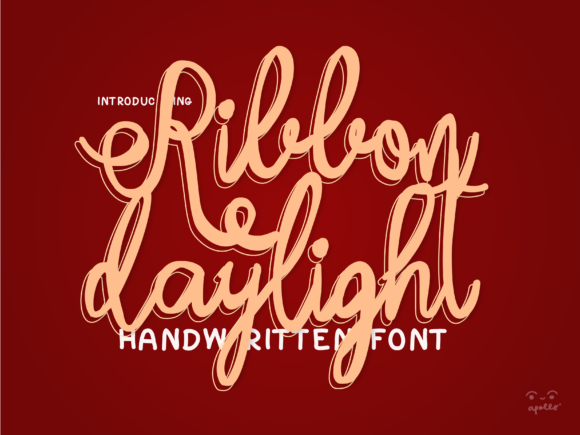
Ribbon Daylight Script: A Font with Flow and Grace
There's a particular kind of warmth that only a handwritten element can bring to a design. It's the subtle imperfection, the human touch, that transforms a standard layout into something personal and inviting. This is the core of Ribbon Daylight Script. It’s not just another script font; it’s a carefully crafted typeface where each character is adorned with delicate ribbon-like strokes and playful swirls. The result is a premium font that feels both elegant and effortlessly modern.
The Anatomy of a Charming Typeface
What makes Ribbon Daylight Script stand out in a crowded field of script fonts? Its personality is in the details. The strokes have a confident, flowing rhythm, mimicking the way a skilled calligrapher's pen might glide across paper. The defining feature, as the name suggests, is the ribbon effect—a subtle, dimensional quality where strokes appear to twist and loop over themselves, adding depth and visual interest without becoming overwhelming. This isn't a stiff, formal calligraphy; it's a handwritten font with a joyful, organic energy.
Its overall appeal lies in this balance. It possesses enough sophistication for elegant wedding invitations and high-end logo design, yet its approachable charm makes it perfect for heartfelt greeting cards and relatable social media graphics. It’s a versatile creative font that speaks to authenticity.
Where Your Design Projects Come Alive
Understanding where a font excels is key to using it effectively. Ribbon Daylight Script is a natural fit for projects that demand a personal, handmade aesthetic. Think beyond the obvious applications and consider its role in building a cohesive brand identity.
- Print & Stationery: This is its home turf. It elevates thank you cards, adds romance to wedding invitations, and brings a crafted feel to menus, event programs, and packaging for artisanal goods. Its clarity holds up well in print.
- Digital Branding: For entrepreneurs and small business owners, using this display font in a logo or on a website header can instantly communicate creativity and care. It’s particularly effective for brands in lifestyle, beauty, wellness, and boutique retail.
- Editorial & Marketing: In editorial design, use it for pull quotes, chapter titles, or magazine headlines to break up dense text and draw the eye. In marketing, it’s powerful for call-to-action buttons, email subject lines, or promotional graphics where you need to capture attention quickly.
- Packaging & Labels: For packaging design, especially for products like candles, cosmetics, or specialty foods, this font adds a layer of perceived value and artisan quality. It tells a story before the product is even opened.
Making It Work: Practical Guidance for Designers and Creators
Choosing a beautiful font is only half the battle. Using it well is what separates good design from great. Here’s how to approach Ribbon Daylight Script with a strategic mindset.
Evaluating Fit and Pairing
First, ask if the font’s personality aligns with your project’s message. Its flowing, decorative nature means it’s best used for headlines, logos, and short phrases, not for body copy. For readability in longer text, pair it with a clean, simple sans serif font or a sturdy serif font. A classic combination might be using Ribbon Daylight Script for a main headline with a font like Montserrat or Lora for subheadings and paragraphs. This creates a clear visual hierarchy and ensures your message is both beautiful and legible.
Leveraging Included Styles and Licensing
A quality commercial font like this often comes with more than just the basic letters. Look for stylistic alternates, swashes, and ligatures within the font file. These extras allow you to customize words, creating unique connections between letters or adding flourishes to specific characters for a truly bespoke look. Always review the licensing agreement carefully. Understand the terms for commercial use across different media—whether for client work, merchandise, or digital products—to ensure you’re covered and can use this design asset confidently in all your projects.
Readability and Consistency
While its charm is in its swirls, ensure the core letterforms remain clear at your intended size. Test it on different backgrounds and in various contexts. A busy background can compete with its intricate details. For brand identity work, consistency is paramount. Use the font in the same way across your website, business cards, and social posts to build recognition. Its distinctive style can become a memorable part of your brand’s visual language when applied thoughtfully.
In the end, Ribbon Daylight Script is more than just a typeface; it’s a tool for adding emotion and craft to your work. By understanding its strengths and applying it with intention, you can harness its flowing energy to create designs that feel genuinely personal and professionally polished.